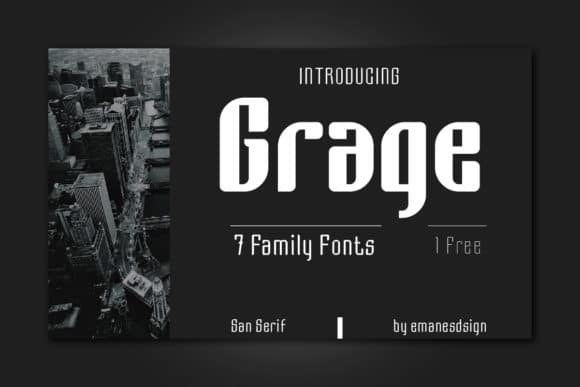
Grage is a bold and unique sans serif font. Suitable to a wide variety of designs due to its neat and simple style, Grage has the potential to become your favorite go-to font, no matter the occasion!